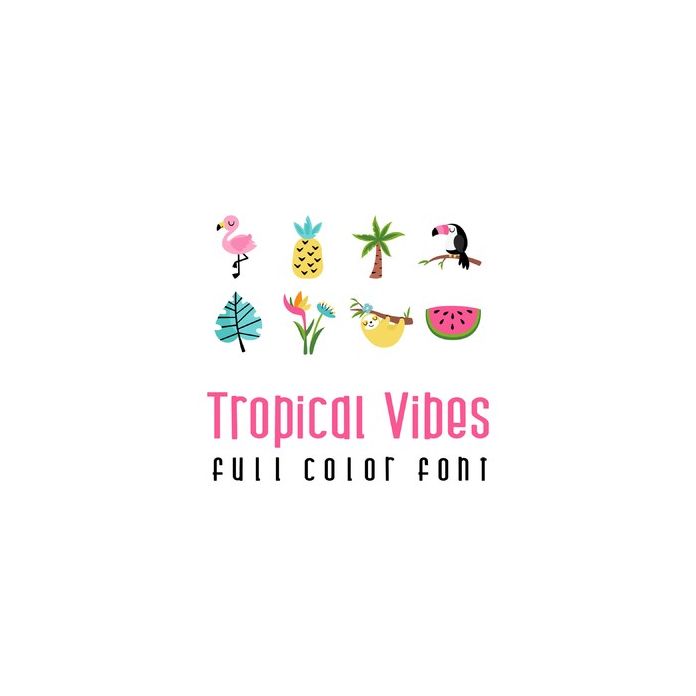
This adorable full color doodlebat font features 26 tropical images perfect for vacation and summer. Perfect for cards, crafts, gifts, decor, scrap book pages, planner stickers and more!